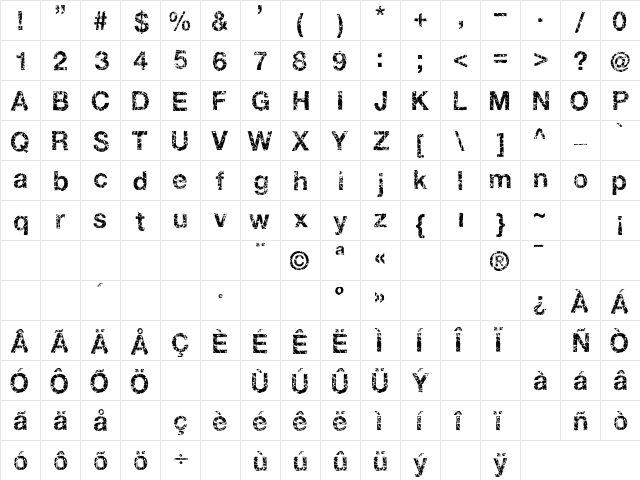
Gastada Regular Font Preview
Gastada Regular
Gastada Regular Font Details
Design Context for Gastada Typeface
Gastada is a composed and adaptable typeface that performs quietly and consistently across a wide range of design contexts.